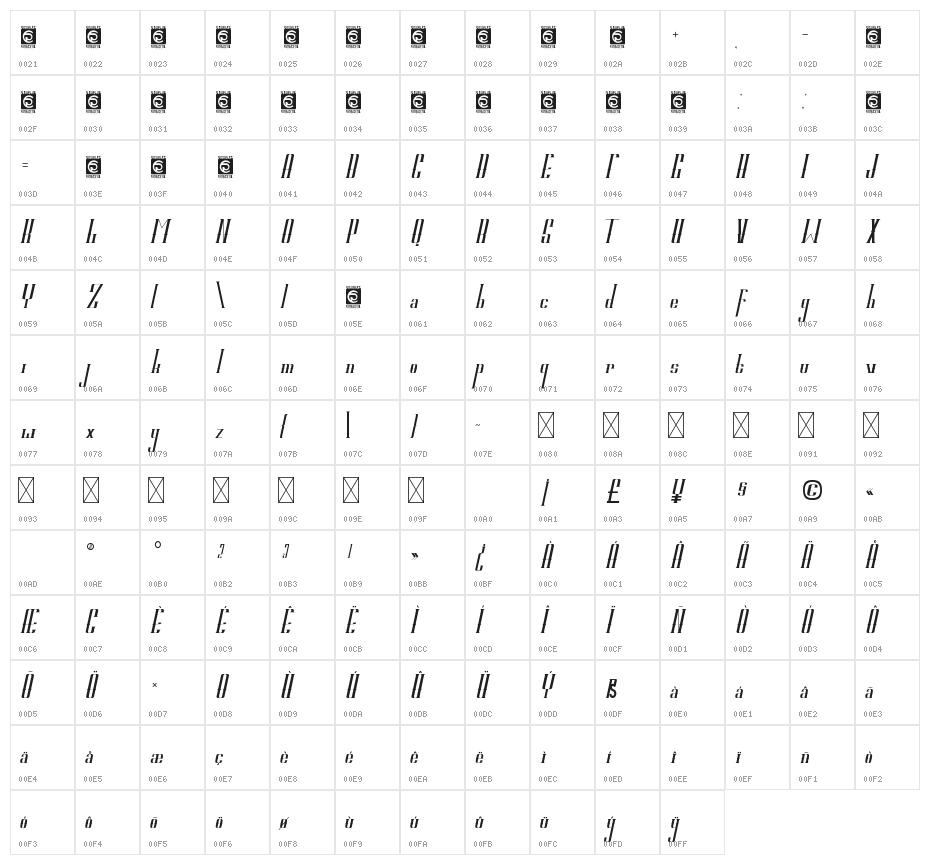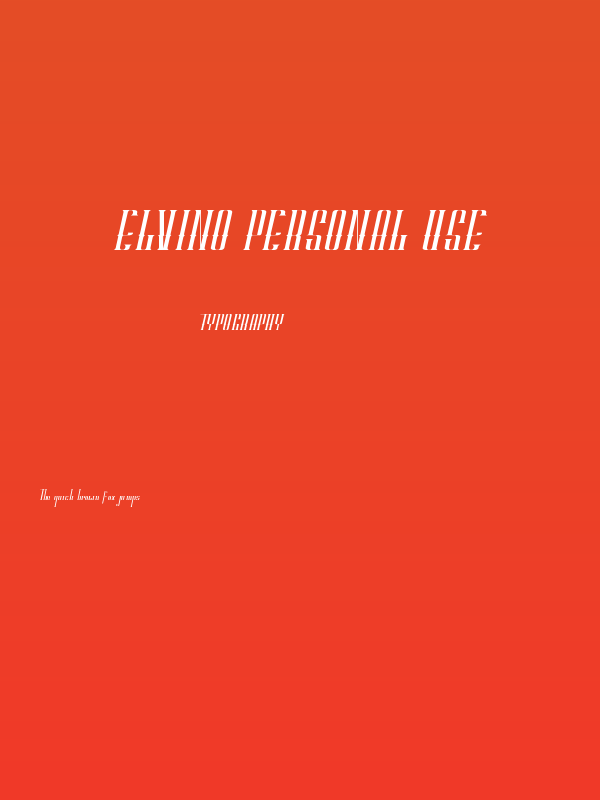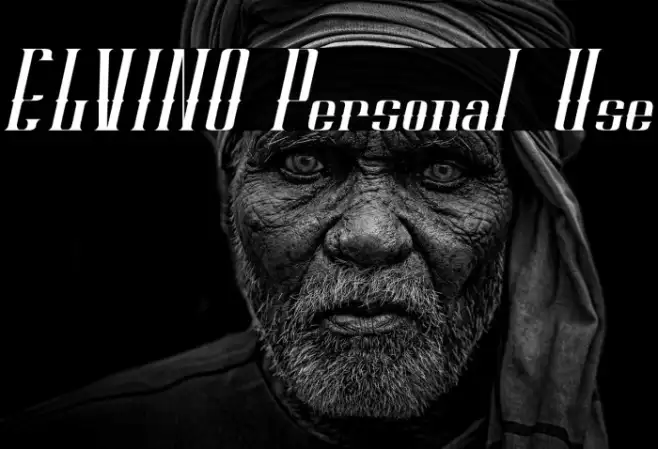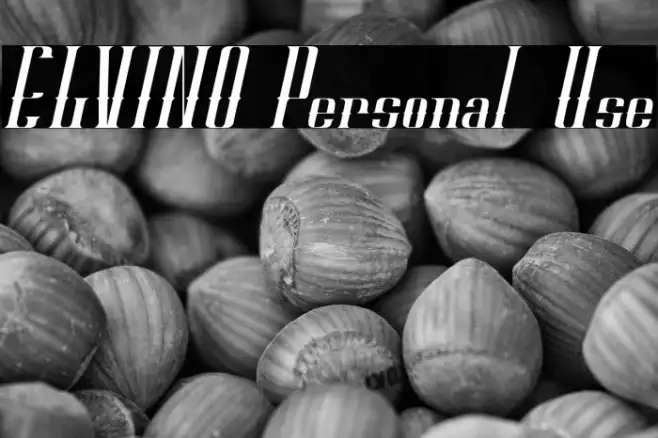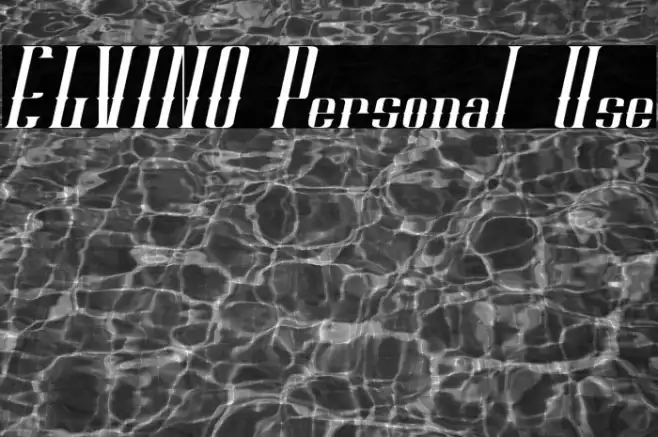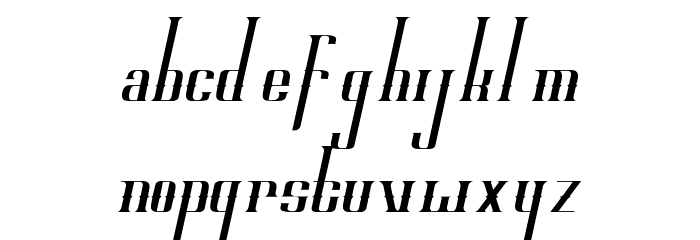
ELVINO Personal Use Font
ELVINO Personal Use Description
This font features a distinctive and modern style with elongated and angular letterforms. The uppercase letters have a unique slant, giving them a dynamic and forward-moving appearance. The lowercase letters maintain a similar angularity, creating a cohesive look across the typeface. The numbers and special characters are designed to match the overall aesthetic, with sharp edges and a contemporary feel. The font's design is both bold and elegant, making it suitable for a variety of creative applications.
| Proposed Projects | Ideal for branding, posters, album covers, and any project requiring a modern and edgy typeface. |